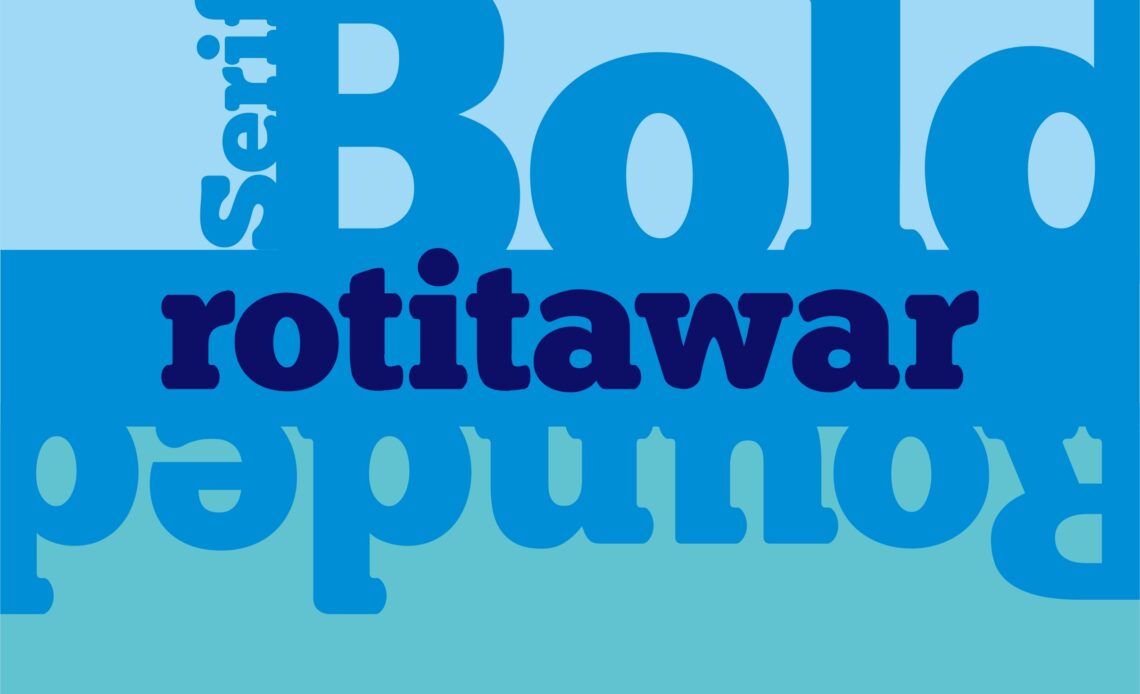
Feast your eyes on Rotitawar, a masterpiece in the world of typography. This alluring serif typeface, meticulously crafted by Greenlines Studios, is an ode to elegance and impact. Its rounded edges and bold strokes exude a sense of sophistication that leaves a lasting impression.
Rotitawar is not merely a font; it's an artistic expression that breathes life into your designs. Its carefully balanced serifs, reminiscent of a calligrapher's delicate touch, add a touch of timeless charm to your creations. Whether you're a seasoned designer or a creative enthusiast, Rotitawar is the perfect companion for projects that demand attention.
With Rotitawar, you're not just downloading a font; you're embracing an experience. Its versatility knows no bounds, making it suitable for a multitude of design endeavors. From captivating headlines that command attention to alluring logos that leave a mark, Rotitawar elevates your designs to new heights.
Visualize your words dancing upon the screen, adorned with the exquisite curves and confident strokes of Rotitawar. It's the perfect font for titles that demand respect, headings that announce your presence, and body text that captivates readers with its refined elegance.
Rotitawar is not just a font; it's a statement of style, a symphony of design that elevates your projects beyond the ordinary. Let your creativity flourish as you explore the boundless possibilities of this extraordinary typeface. Embrace Rotitawar and witness the transformation of your designs into masterpieces of visual communication.